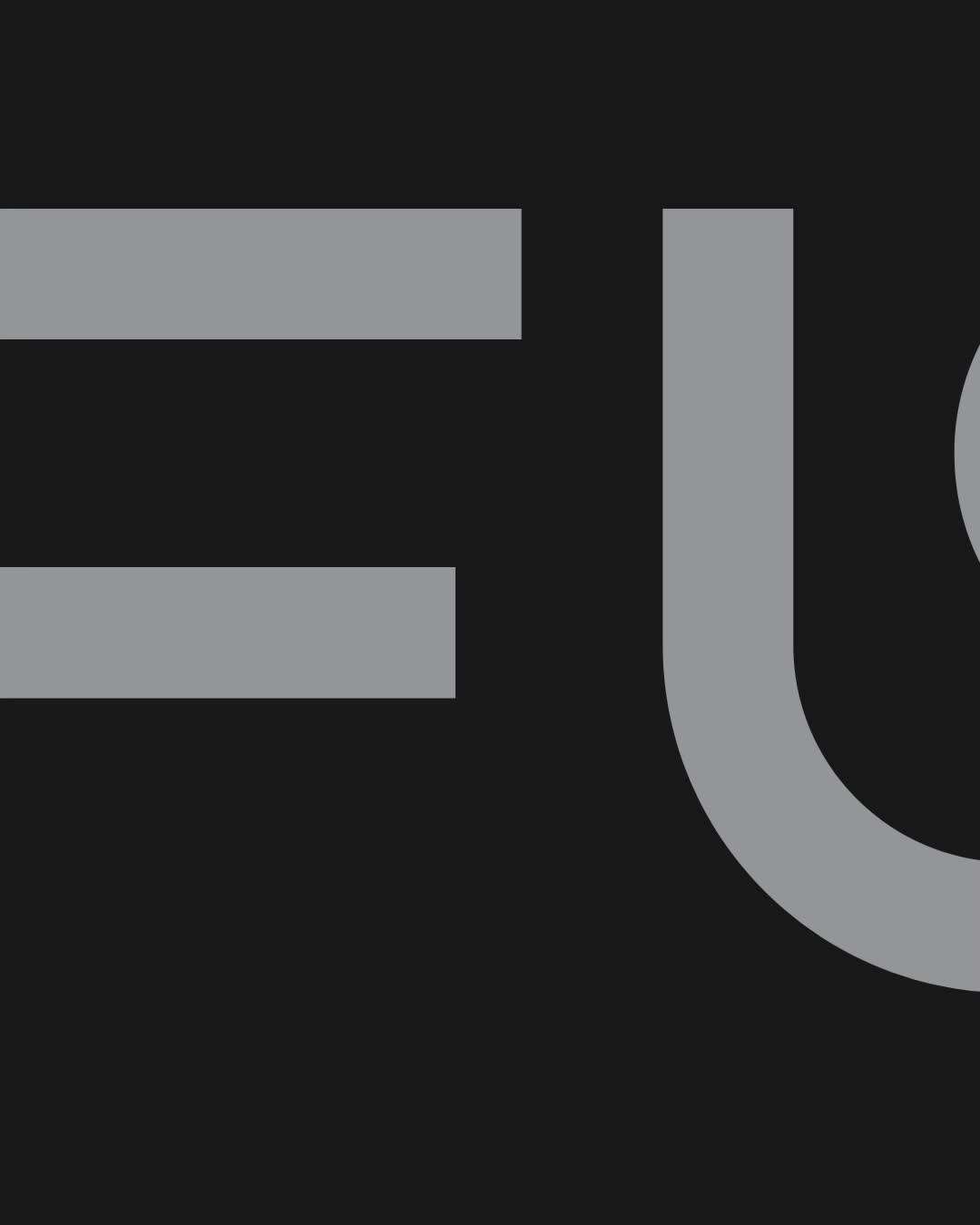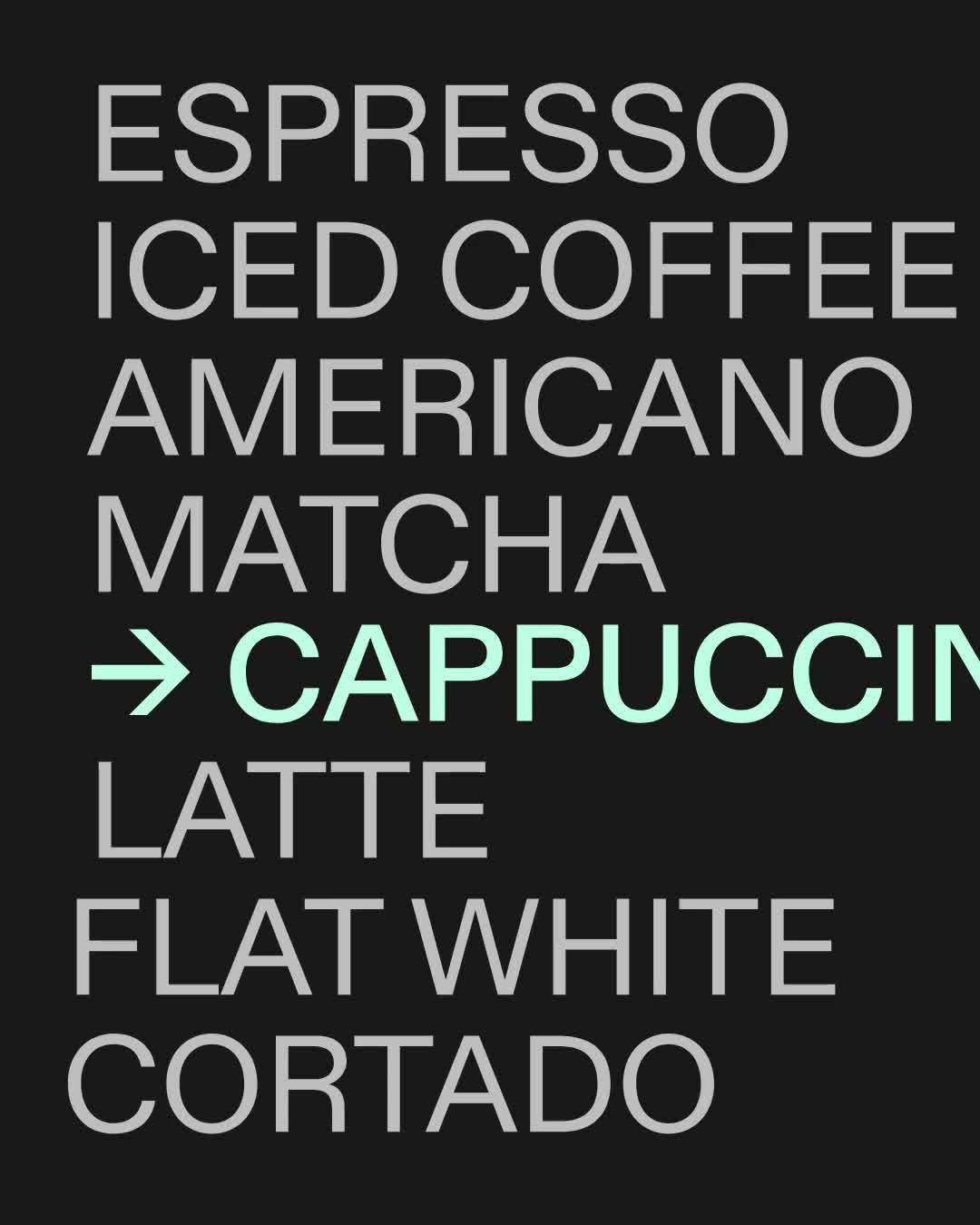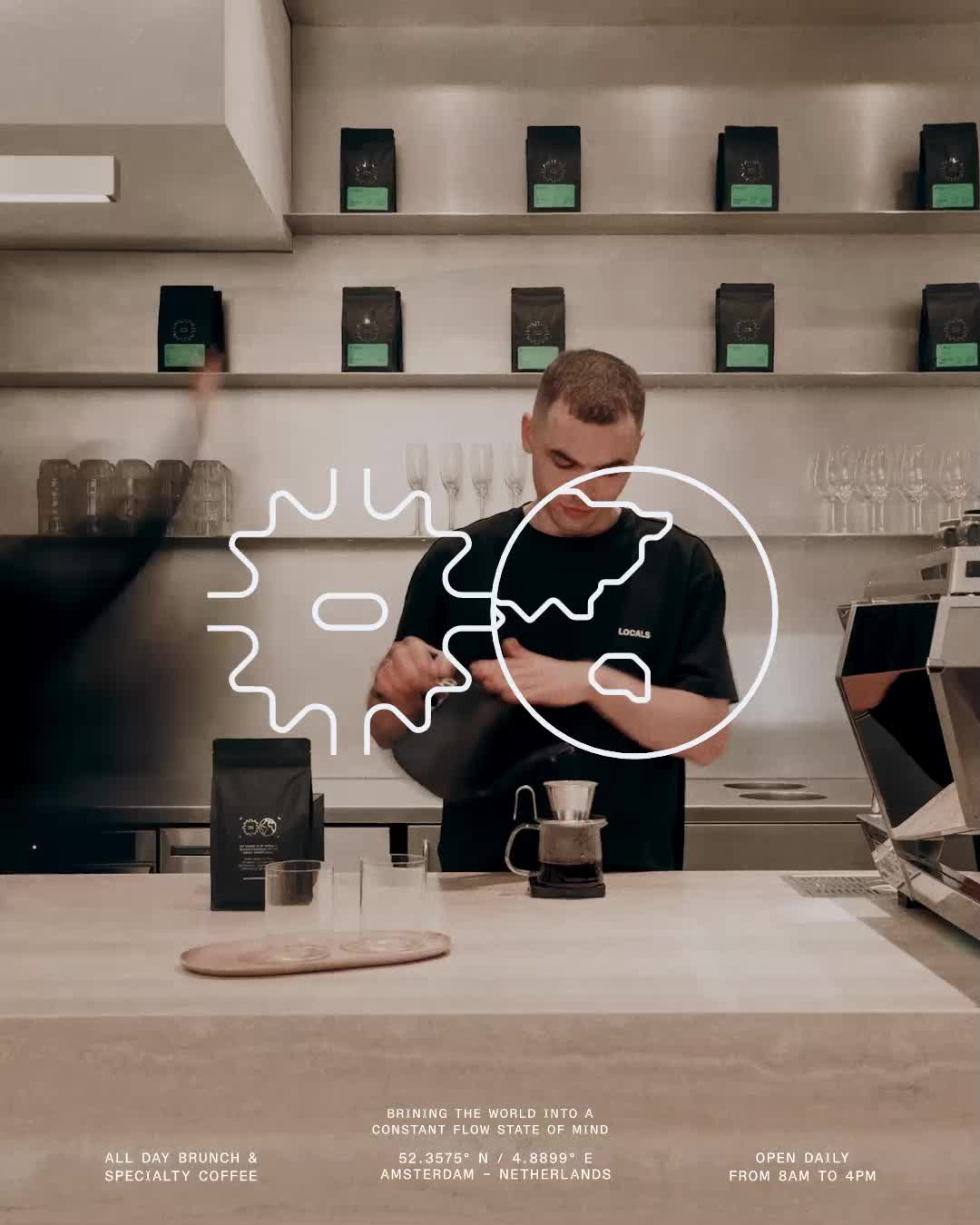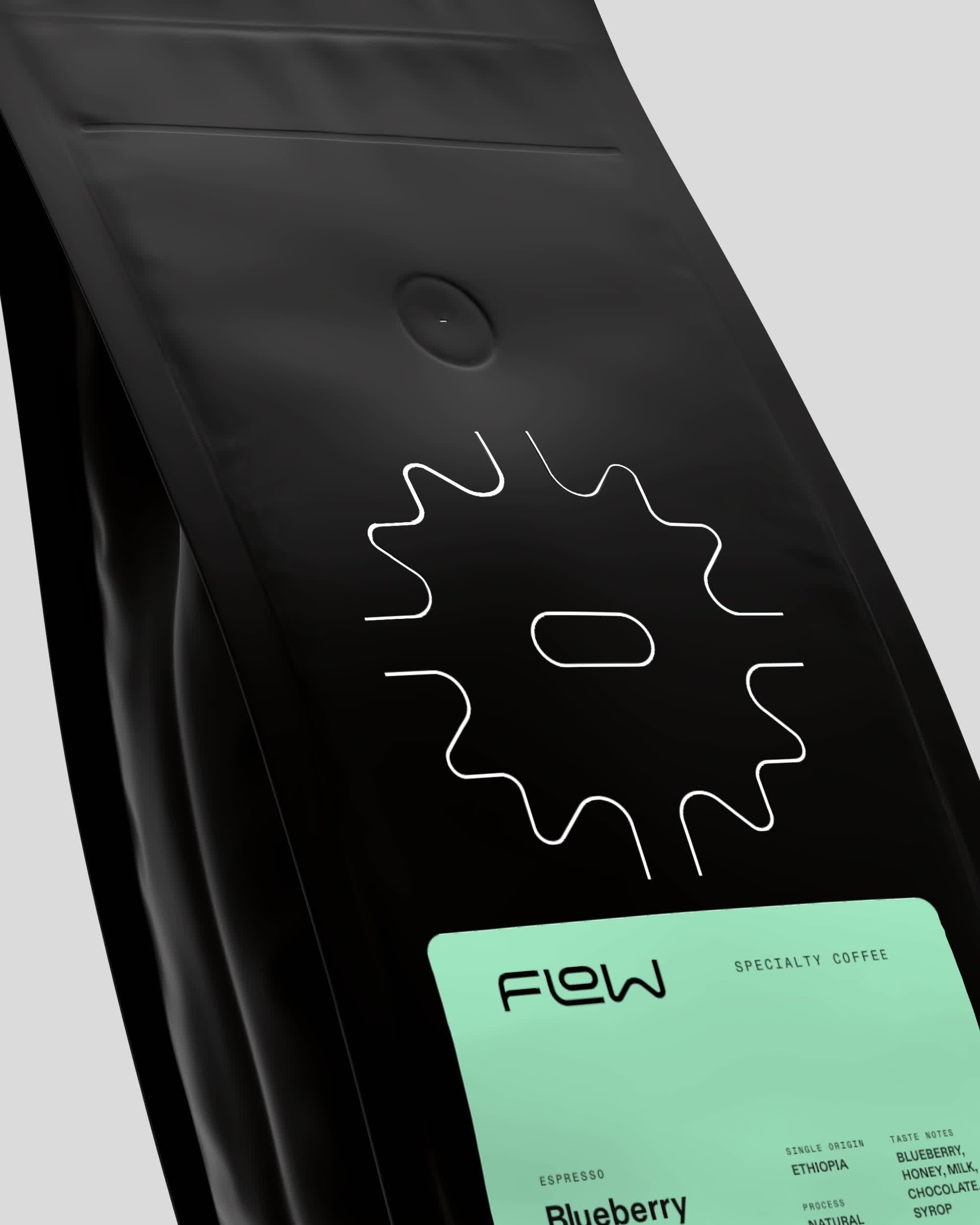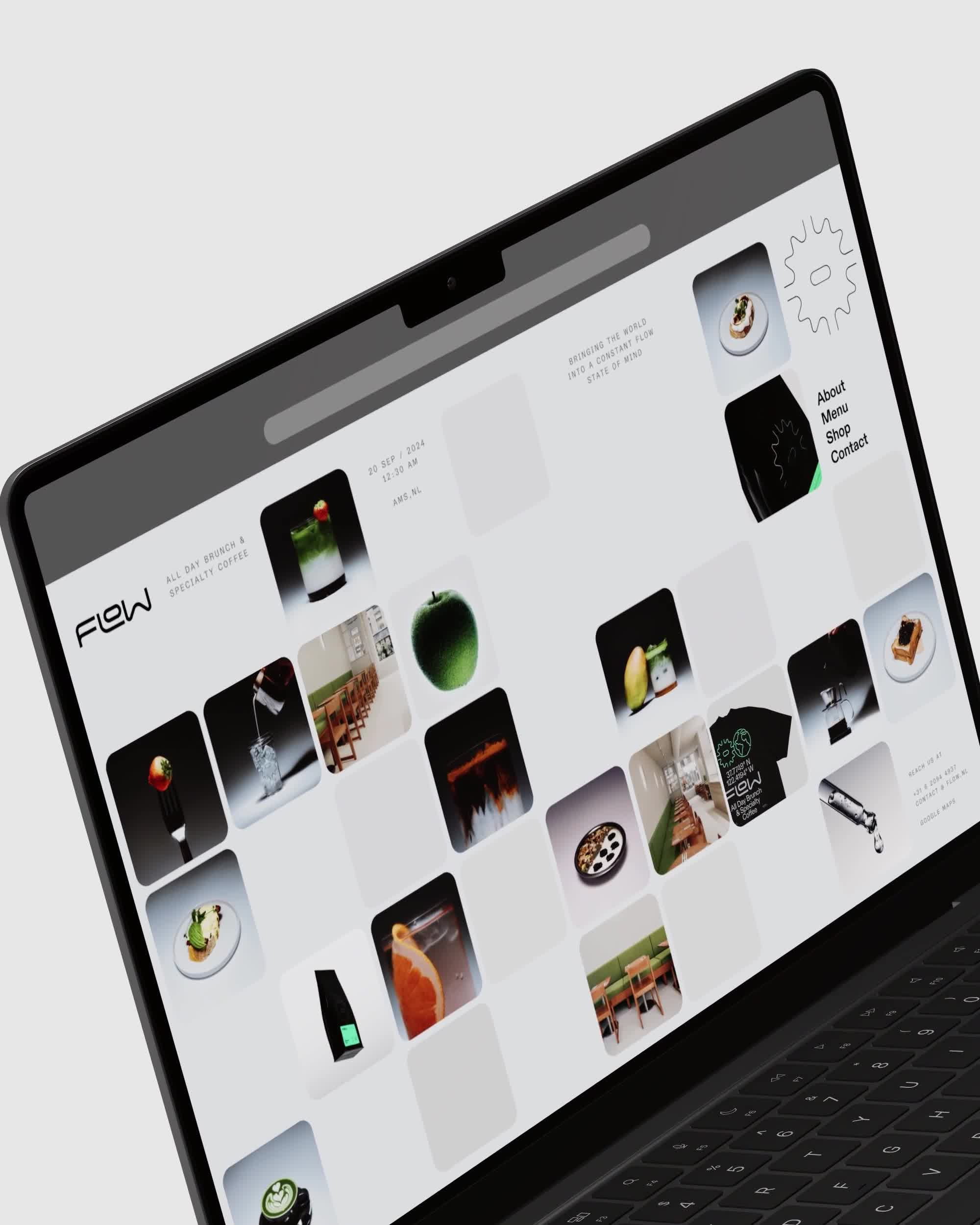
Flow
Coffee filter pads become the brand DNA for Flow café. Fluid wordmark plus modular grid system both reference the circular filter structure. ABC Diatype proportional/semi-mono combo gives range without competing. Contemporary minimalism over rustic coffee aesthetics.